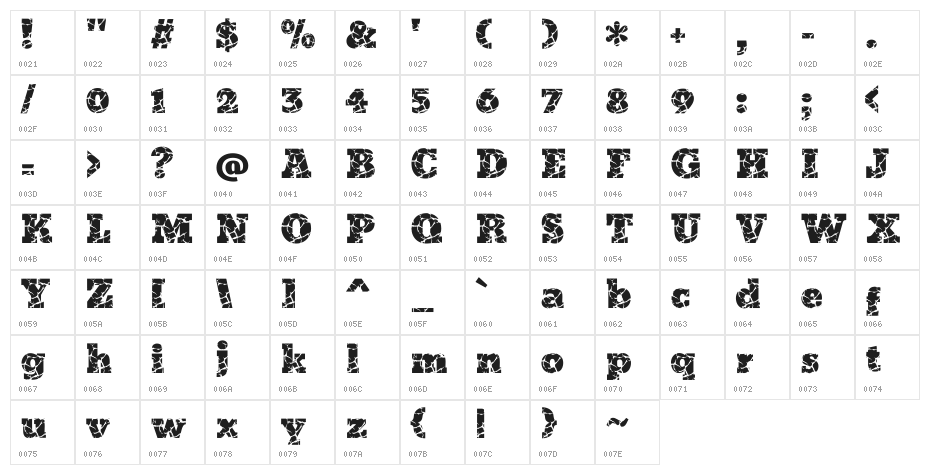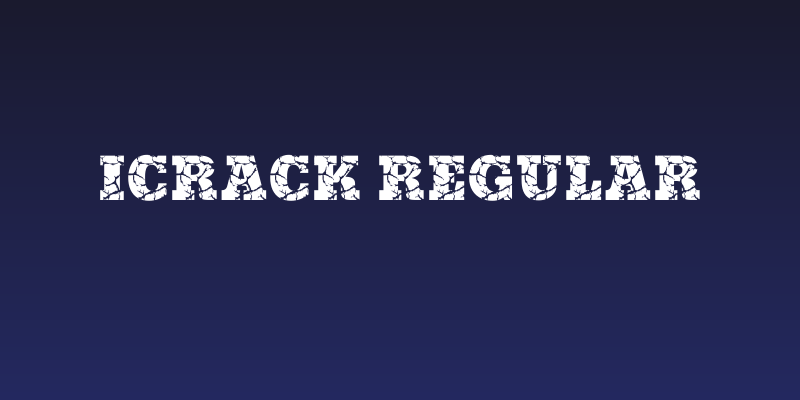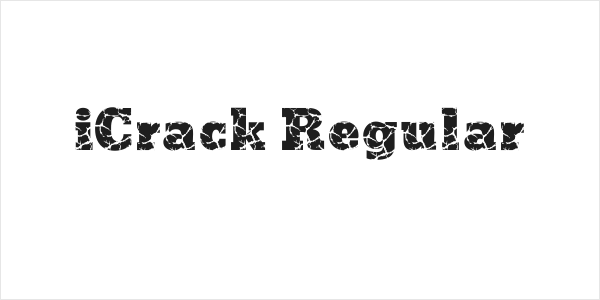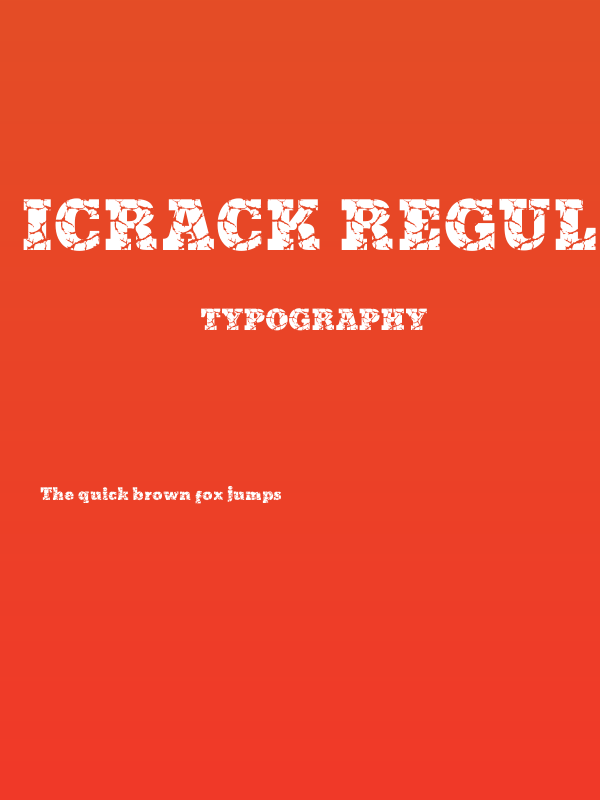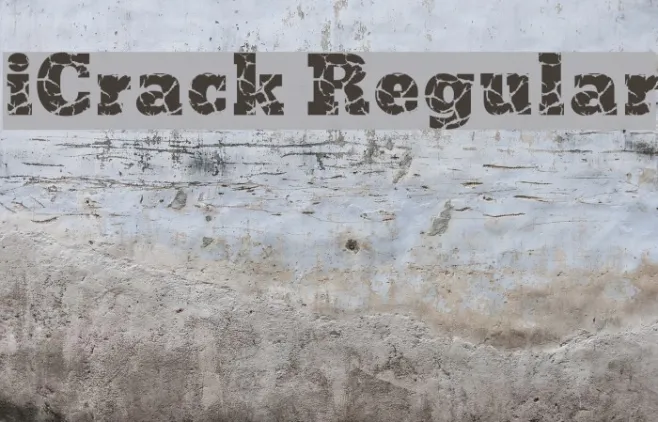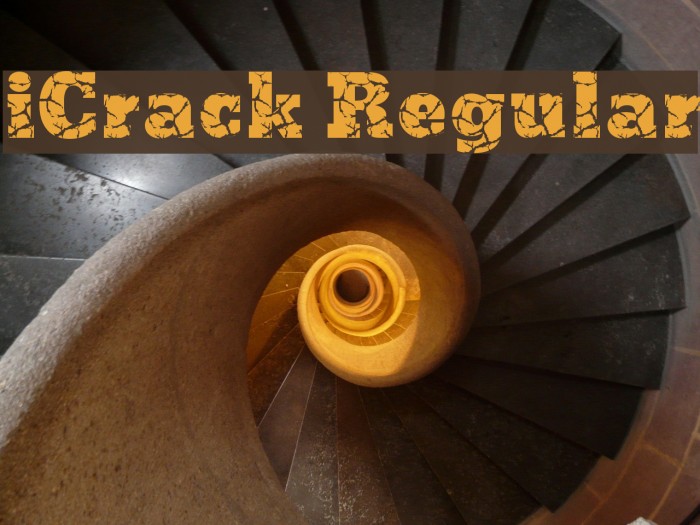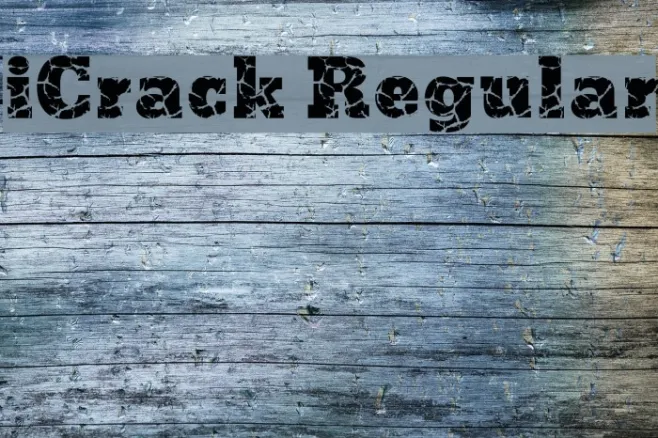
iCrack Regular Font
iCrack Regular Description
This font features a bold, cracked texture that gives it a distressed and rugged appearance. Each character is filled with a pattern resembling shattered glass, creating a unique visual effect. The uppercase and lowercase letters maintain consistent proportions, while the numbers and special characters follow the same stylistic theme. The font's design is eye-catching and suitable for projects that require a strong, impactful look. Its decorative nature makes it ideal for titles, posters, and graphic designs that aim to convey a sense of edginess or rebellion.
| Proposed Projects | Ideal for posters, album covers, edgy branding, and graphic design projects. |